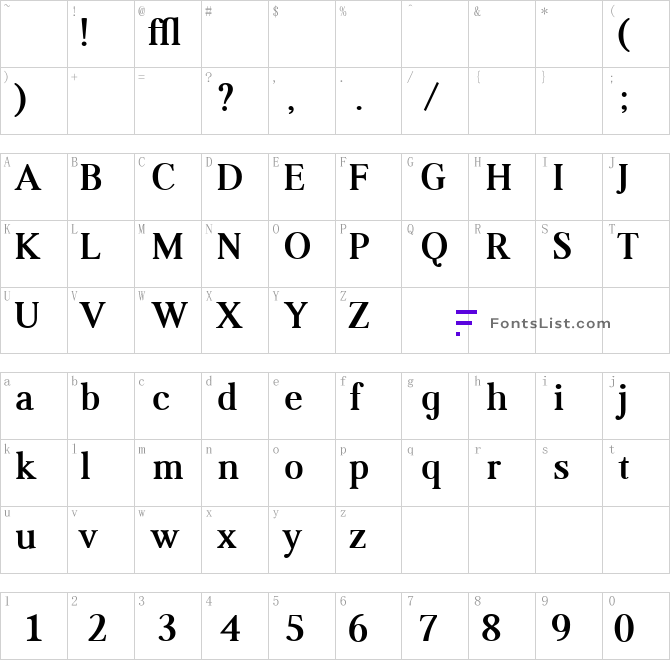
- Font Name:Alita
Alita-Bold.ttf is a very beautiful artistic font, Alita-Bold.ttf is widely used in the design and printing of various books and pictures,Alita-Bold.ttf has a strong visual impact,Alita-Bold.ttf is a commonly used font in newspapers, magazines and books, and is used in posters, e-commerce Poster design, store design, logo design, font design and other fields.Alita-Bold.